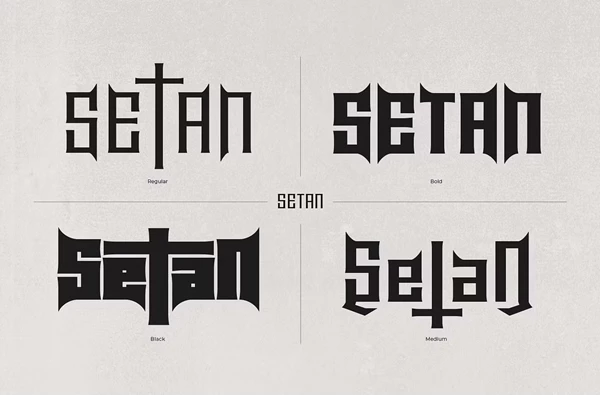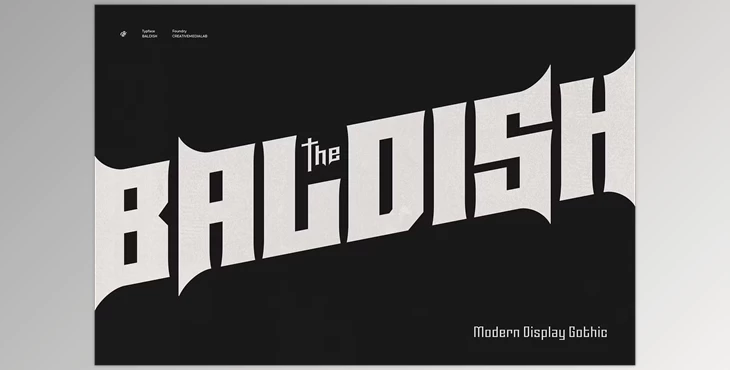
Baldish - Modern Display Gothic Font: Introducing Baldish, a contemporary display font designed to infuse your projects with a sense of strength, raw energy, and modernity. Inspired by the iconic roof of the Rumah Gadang, a traditional Minangkabau house in West Sumatra, Indonesia, Baldish features unique alternate sharp corners that add a bold edge to your designs. Its firm appearance makes this font perfect for conveying messages about sports, automotive events, music, and beyond.
How can we add a modern and sophisticated look to our text designs?
You can use "Baldish - Modern Display Gothic Font."
"Baldish - Modern Display Gothic Font" Samples:
Baldish offers a versatile range of seven weights, from thin to black, allowing you to tailor the thickness of the letters to suit your project's needs. Whether you're crafting word titles, logos, or intricate designs, Baldish provides the flexibility to make a statement with its distinctive Gothic or black metal aesthetic.
Elevate your designs with Baldish, the font that combines tradition with modernity, strength with sophistication, and raw energy with refined elegance.